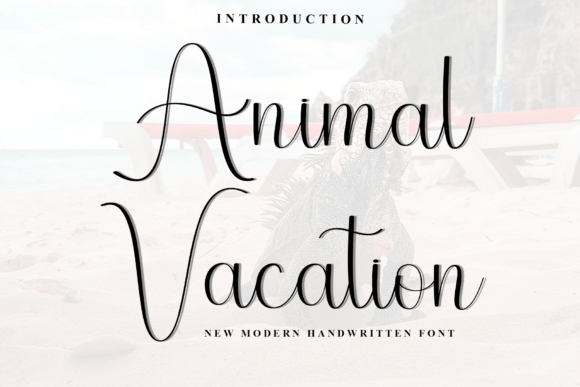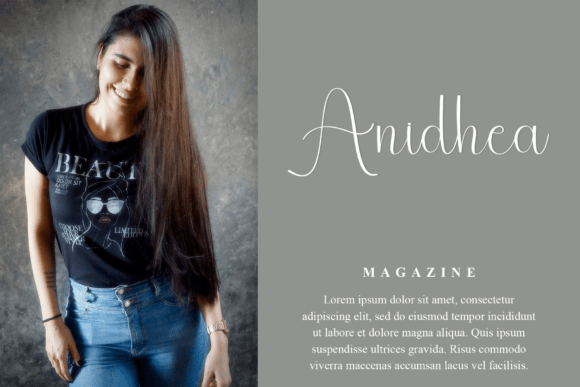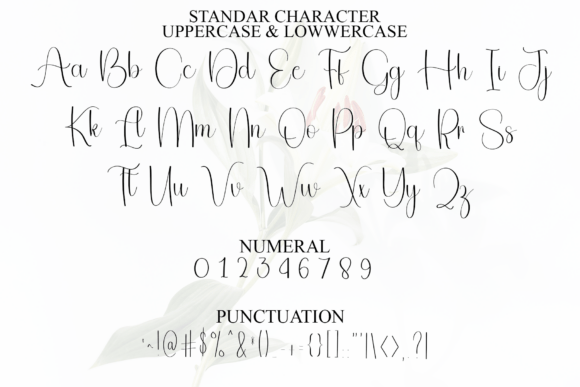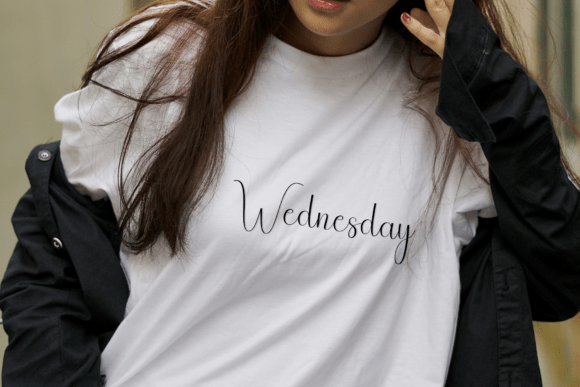
Animal Vacation Font: A Cute Handwritten Font for Social Media
About the Animal Vacation Font
Let us introduce you to Animal Vacation Font, where timeless design meets modern craftsmanship. Animal Vacation is a casual and creative font that exudes warmth and friendliness. Its round, playful strokes create a relaxed and approachable feel, perfect for personal projects, invitations, and social media graphics. The font’s charming, hand-drawn aesthetic adds a fun and unique touch to any design.
Animal Vacation’s friendly, rounded forms make it ideal for headlines, short text blocks on posters or invitations, and social media content where a casual, approachable tone is desired. It works particularly well for branding projects targeting children, families, or businesses emphasizing fun and playfulness. Avoid using it for body copy or lengthy paragraphs; its informal style would hinder readability.
Pairing Animal Vacation with a clean sans-serif like Open Sans for body text provides excellent contrast, maintaining readability while preserving the playful theme. For a more sophisticated look, consider pairing it with a delicate serif such as Lora, allowing the hand-drawn charm of Animal Vacation to stand out.
The font’s overall personality is undeniably playful and friendly, with a touch of whimsical charm. Its informal nature makes it unsuitable for projects demanding professionalism or sophistication.
Animal Vacation Font Usage Examples
Animal Vacation Font Example